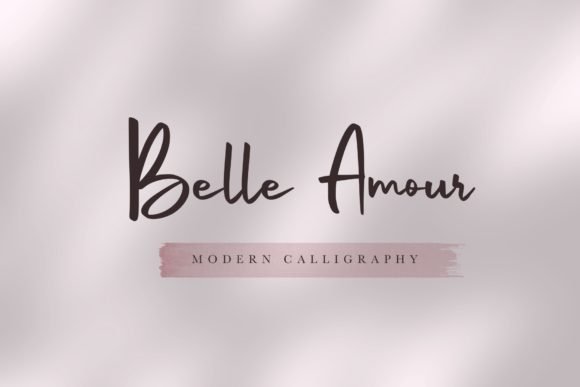
Introduction to Belle Amour Font
Belle Amour is a delicate and exquisite handwritten font, designed to elevate each of your creations.
Relaxed and timeless, this font makes the fittest choice no matter the project .
Why Choose Belle Amour Font?
Belle Amour Font offers exceptional quality and versatility, making it a valuable addition to your design toolkit. Whether you’re creating for personal projects or commercial use, Belle Amour Font delivers professional results.